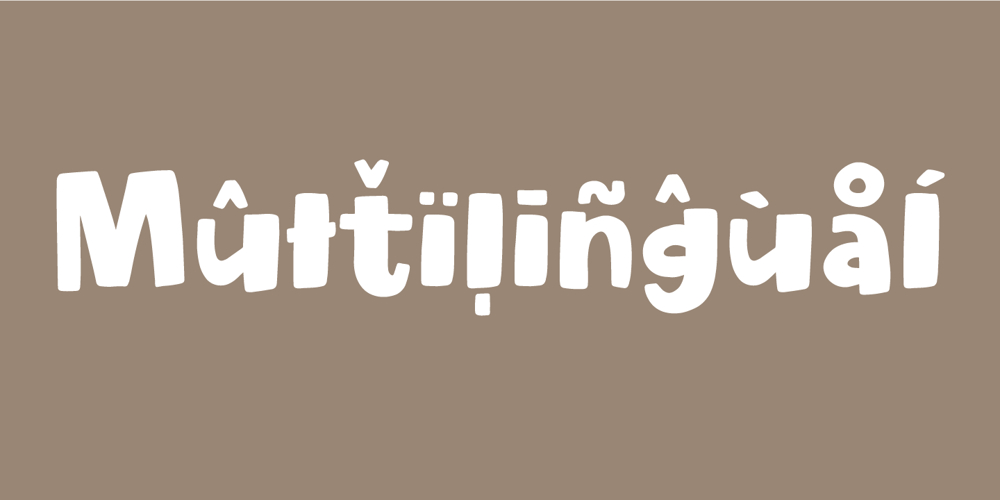
Stranger Blue Font Family was designed by Jakob Fischer and published by PizzaDude.dk. Stranger Blue contains 1 styles and family package options. Stranger Blue is a soft-edged and playful comic font with bouncy ligatures. Multilingual support and legible at even small sizes